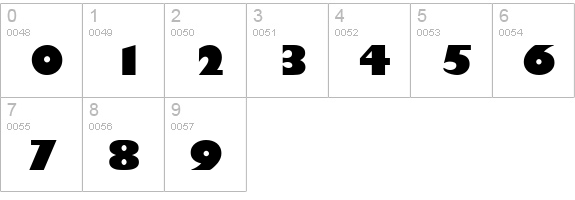
Introducing Garrison Kayo font, a stylish and versatile typeface that exudes modern sophistication. With its sleek lines and elegant curves, Garrison Kayo is perfect for a wide range of design projects, from logos to branding to web design. This font effortlessly combines classic charm with a contemporary edge, making it a must-have for any designer looking to make a statement. What sets Garrison Kayo font apart is not just its striking aesthetics, but also its accessibility. The best part? Garrison Kayo is completely free to download at FontsMarket.com, allowing you to elevate your designs without breaking the bank. So why wait? Add Garrison Kayo font to your collection today and watch your projects come to life with style and flair.